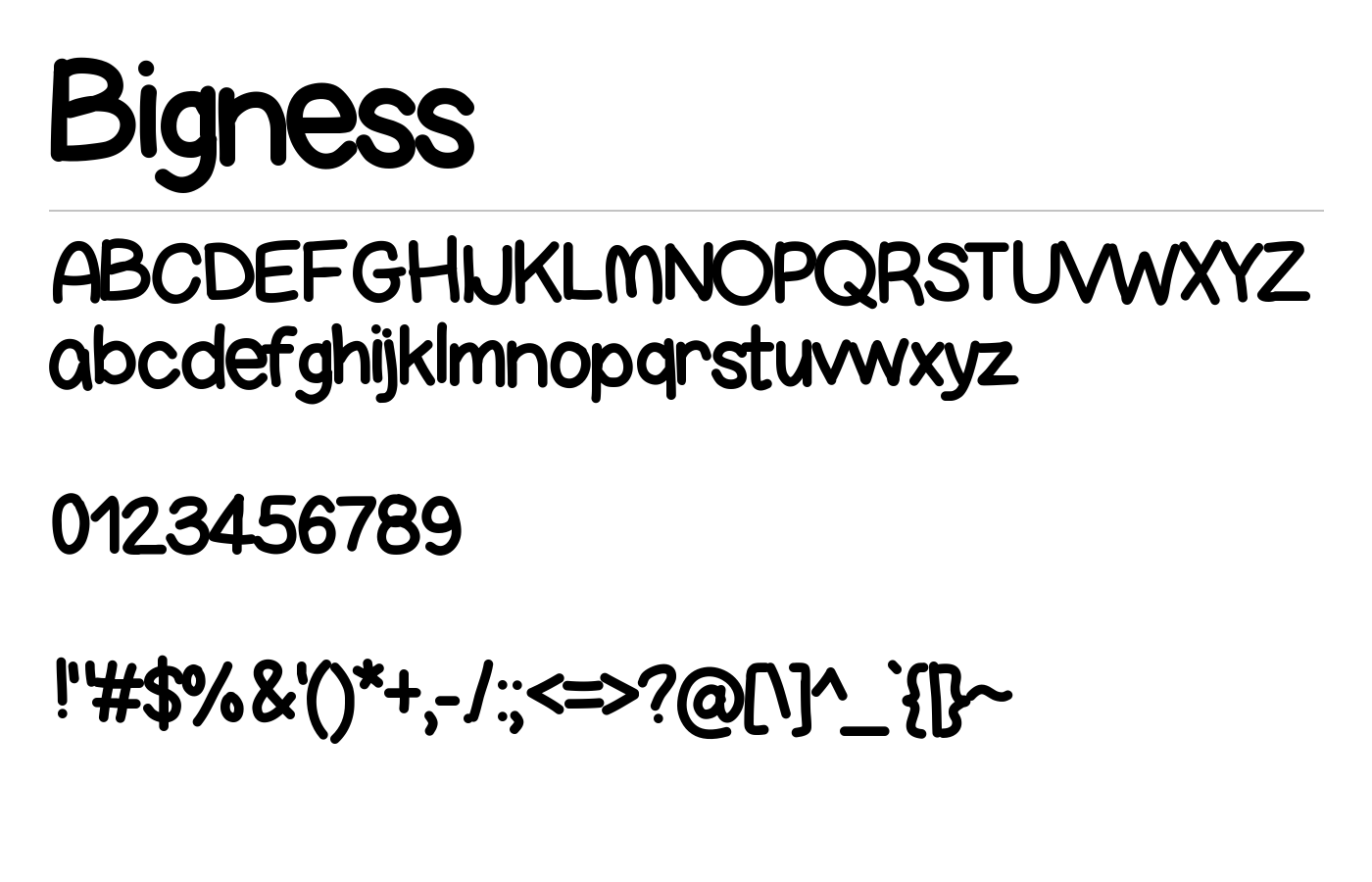
Bigness Font is a playful and friendly sans serif typeface with rounded, slightly irregular strokes that create a casual, hand-drawn feel. Its medium weight and wide proportions make it highly legible and inviting, ideal for designs that want to convey approachability and warmth. This font works wonderfully for children's books, informal branding, and fun editorial projects where a relaxed, approachable style is key.
Bigness Font
About Bigness Font